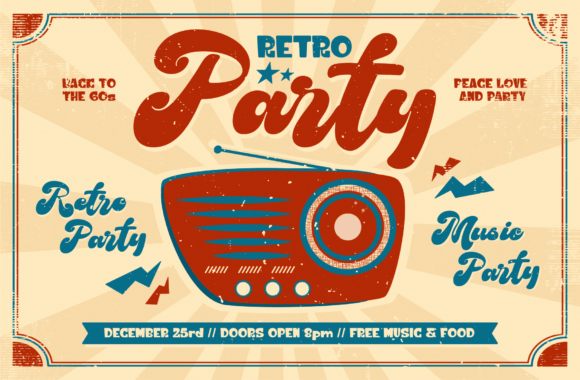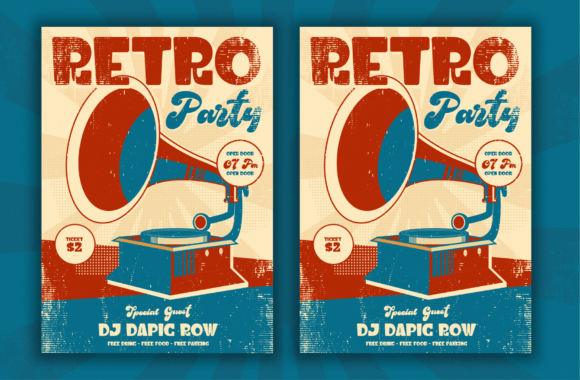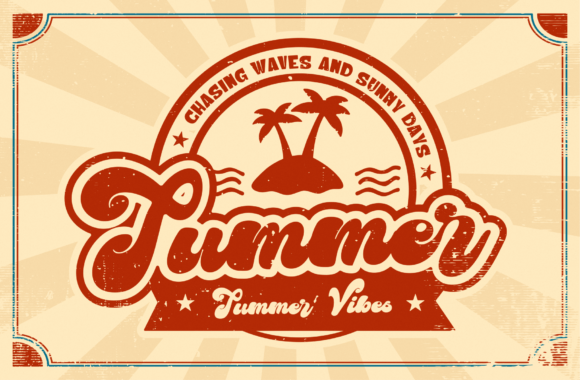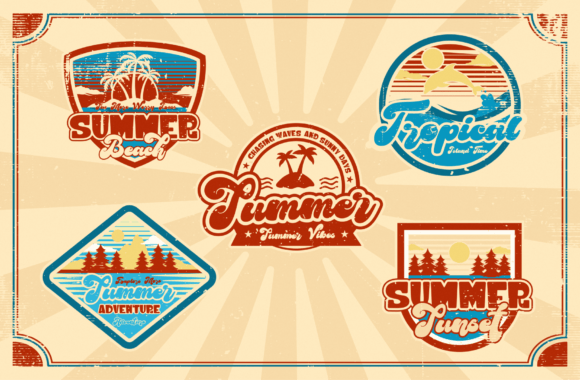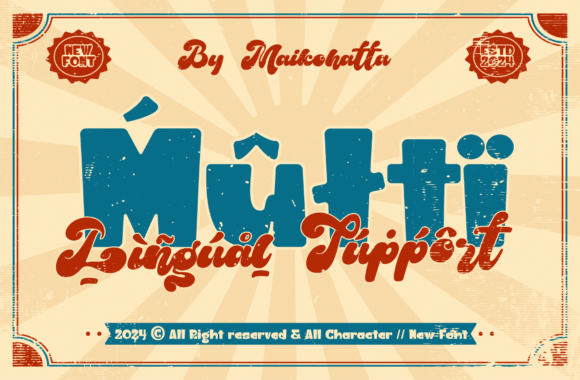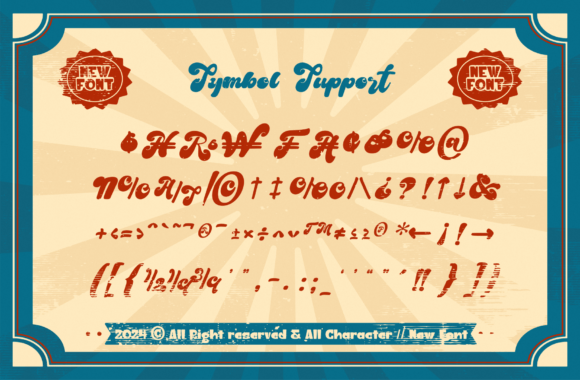
Introduction to Moctune Font
Have you ever stared at a blank page, waiting for inspiration to strike? That’s where our latest creation, the Moctune Font, comes in – the perfect catalyst to breathe life into your next creative project. With its elegant script style and versatility, this font is poised to elevate your design game.
As a designer, you understand the importance of having a reliable design resource that can deliver high-quality results. That’s why we’re excited to introduce the Moctune Font – a free download that’s perfect for designers looking to add a touch of sophistication to their work. Whether you’re working on a project with a transparent background or need a font that can stand out on its own, Moctune Font is a valuable addition to your design arsenal.
Key Features of Moctune Font
- High-quality design resource for creative projects, offering a unique and stylish aesthetic.
- Features a transparent background, making it ideal for use on various backgrounds and designs.
- Includes a wide range of characters, including uppercase and lowercase letters, numbers, and special characters, making it suitable for various creative applications.
- Supports various languages, including Latin, Cyrillic, and Greek alphabets, making it a versatile design resource for global creative projects.
Honest Review: Moctune Font
As a designer, I’m always on the lookout for high-quality design resources to elevate my creative projects. Recently, I stumbled upon the Moctune Font, and I’m excited to share my honest review with you.
What works well: ✨ The Moctune Font offers a unique and stylish aesthetic that can add a touch of sophistication to any design project. Its modern and sleek design makes it perfect for use in branding, digital media, and even print materials. Additionally, the font is available for free download, making it an excellent resource for designers on a budget.
Some of the key features that I appreciate include:
- A wide range of characters and symbols to support various languages
- A transparent background, making it easy to customize and integrate with other design elements
- High-quality design that looks great on both digital and print materials
⚠️ However, I did find a few limitations with the Moctune Font. The font is not suitable for use in small text sizes, and it may not be the best choice for designs that require a more conservative or traditional look.
Overall, I’m impressed with the Moctune Font, and I would highly recommend it to designers looking for a modern and stylish design resource. Its high-quality design, wide range of characters, and free download make it an excellent addition to any design project.
The Moctune Font is a high-quality design resource that can be used in various creative projects. It’s available for free download and supports a transparent background, making it ideal for designers who want to add a unique touch to their work.
The Moctune Font is suitable for a wide range of creative projects, including graphic design, digital art, and typography. It’s also a great resource for designers who want to add a unique touch to their work without breaking the bank.